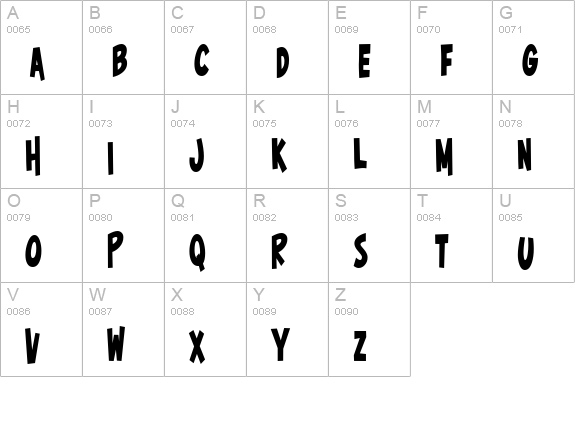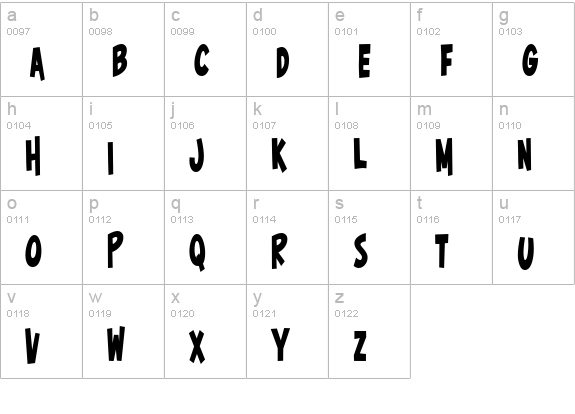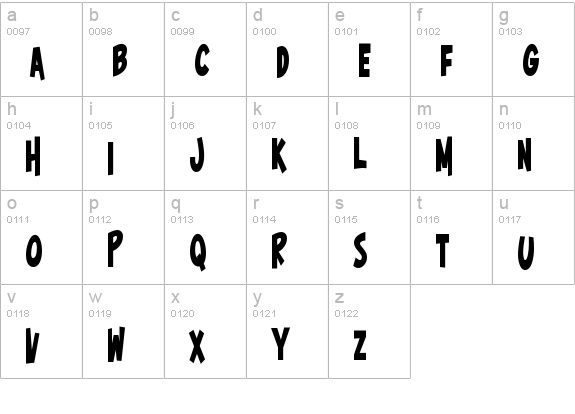
Surfer Shop BTN Cond Bold is a strong, high-contrast, condensed-width variant in the Surfer typeface family \xE2\x80\x94 well suited to headlines, attention-grabbing titles, and strong calls-to-action.
Surfer Shop BTN Cond Bold font is a dynamic and bold typeface designed for those seeking a sense of adventure and excitement in their designs. With its sleek and modern look, this font exudes a cool and laid-back vibe that is perfect for capturing the essence of surfing culture. The condensed style adds a touch of sophistication while maintaining a sense of playfulness. Whether you're working on a project related to surfing, beach lifestyle, or simply want to inject some energy into your designs, Surfer Shop BTN Cond Bold font is the perfect choice. Its versatility allows it to be used across a wide range of design applications, from logos and branding to posters and social media graphics. The best part is that Surfer Shop BTN Cond Bold font is available for free download at FontsMarket.com. So, you can add this eye-catching font to your collection without any cost, making it an accessible and budget-friendly option for all your design needs. Stand out from the crowd and bring a touch of surf-inspired style to your projects with Surfer Shop BTN Cond Bold font.